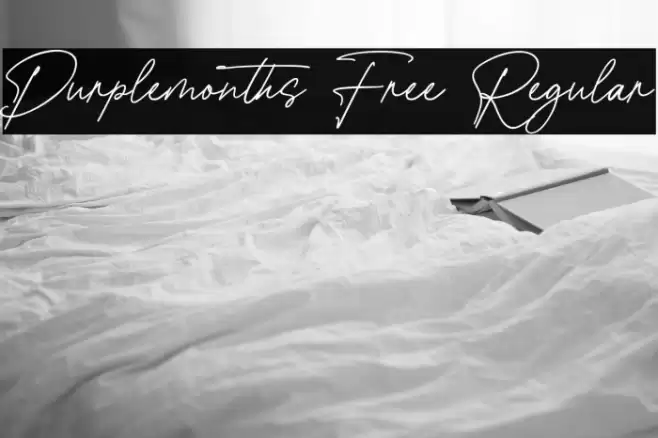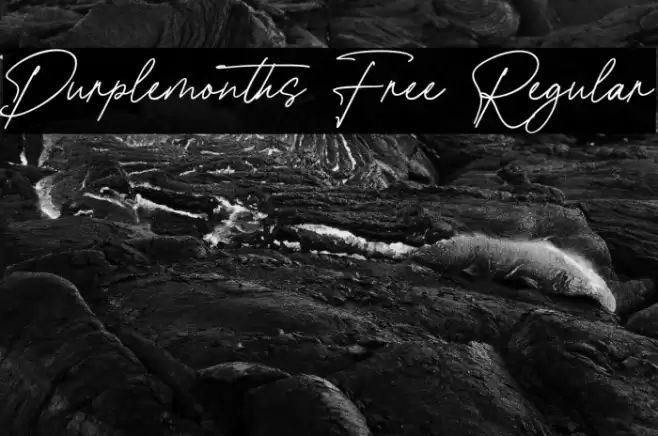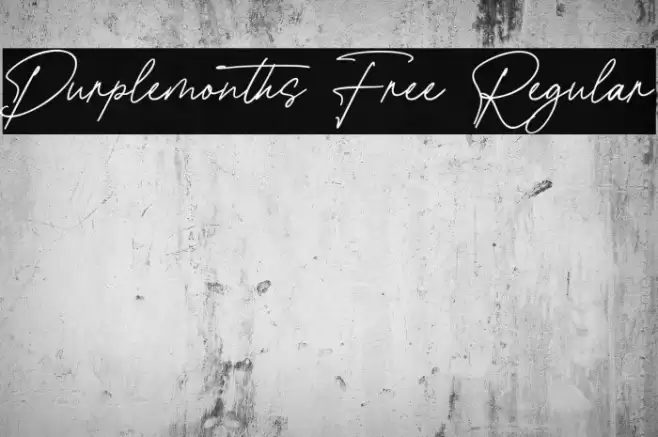
Purplemonths Free Regular Font
Purplemonths Free Regular Description
This font exhibits a fluid and elegant script style, characterized by its flowing and interconnected letterforms. The strokes are thin and delicate, giving it a sophisticated and graceful appearance. The uppercase letters are slightly more embellished, with sweeping curves and loops, while the lowercase letters maintain a consistent and harmonious flow. The overall design is reminiscent of handwritten calligraphy, making it suitable for projects that require a personal and artistic touch. The font's airy and open structure allows for good readability despite its decorative nature.
A fluid and elegant script font with interconnected, calligraphic letterforms from Regular fonts.
- Proposed Projects: Ideal for wedding invitations, greeting cards, branding, and logo design where a personal and artistic touch is desired.
- Overall Style: Elegant, Artistic, Handwritten
- Use Case: Logos, Invitations, Decorative text